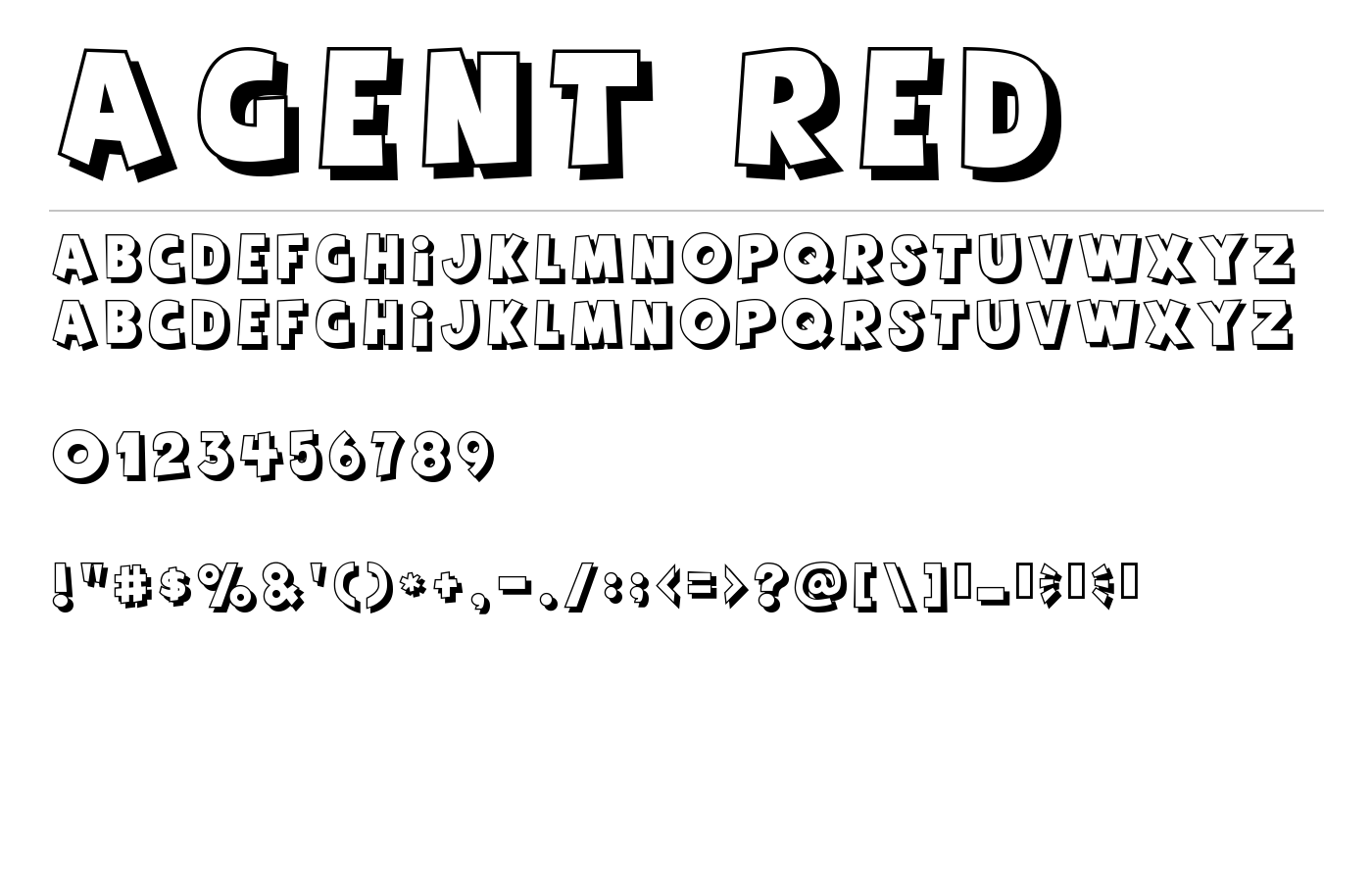
Agent Red is a bold, playful sans serif font with a strong comic book vibe, featuring thick, chunky letterforms with a dynamic shadow effect that adds depth and movement. Its uppercase-only style and rounded details give it a fun, energetic personality, making it perfect for eye-catching headlines, posters, and branding that calls for a lively, informal feel. This font works best in creative, youthful contexts where a sense of excitement and boldness is desired.
Agent Red Font
About Agent Red Font